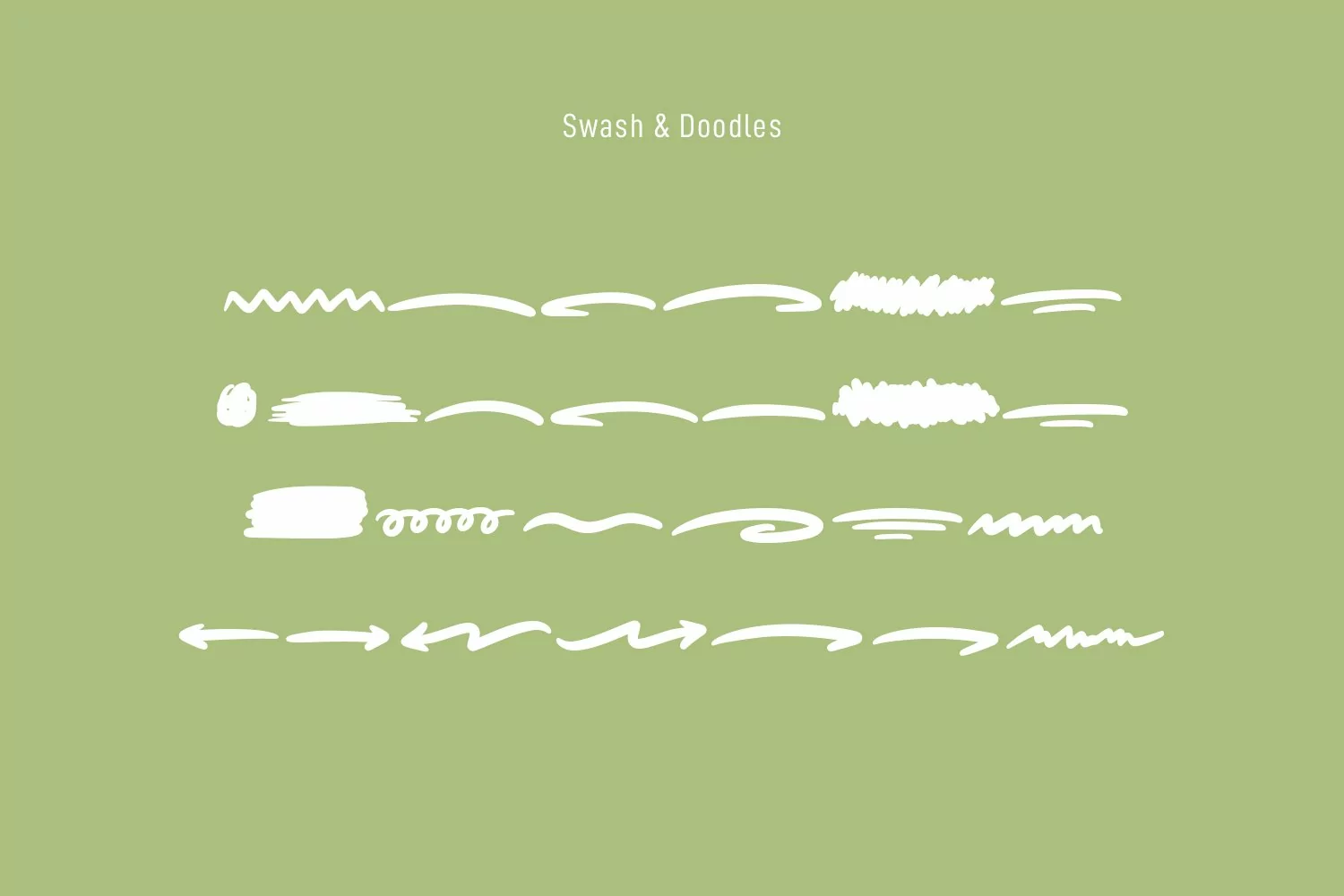
Chillphils is a casual handwritten font. With bold stroke, slant and fun character inspired by the authentic handwriting on the comic paper with a bit of ligatures. To give you an extra creative work. Chillphils font support multilingual more than 100+ language. This font is good for logo design, Social media, Movie Titles, Books Titles, a short text even a long text letter and good for your secondary text font with sans or serif. Make a stunning work with Chillphils font.